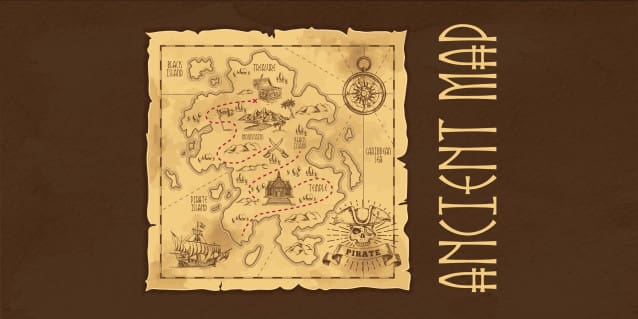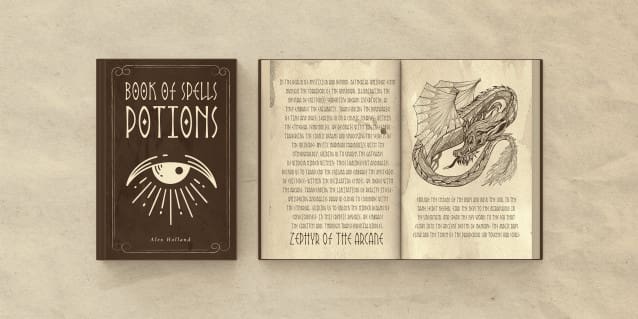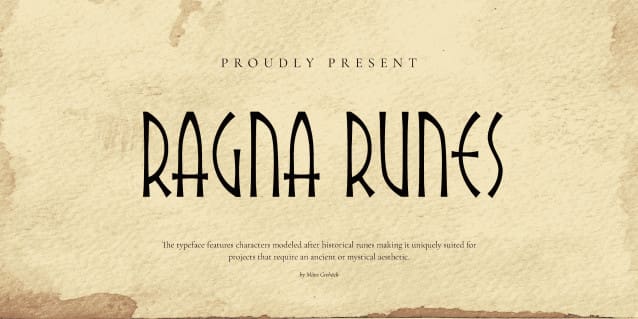
Ragna Runes Font
Ragna Runes Font is a journey back to the days of lore and legend. Using it feels like rediscovering a long-lost civilization, where every rune is more than a letter; it’s an artifact of a bygone era.